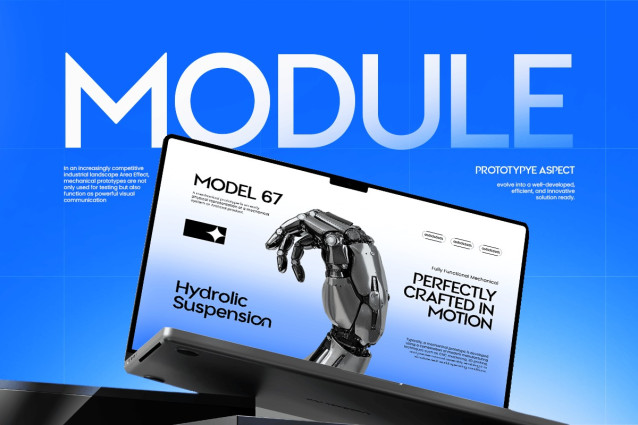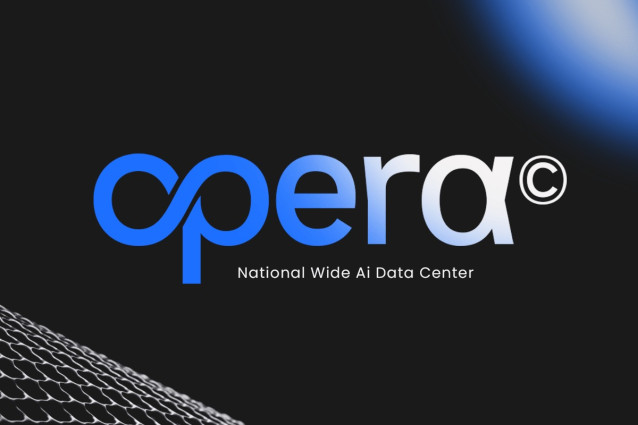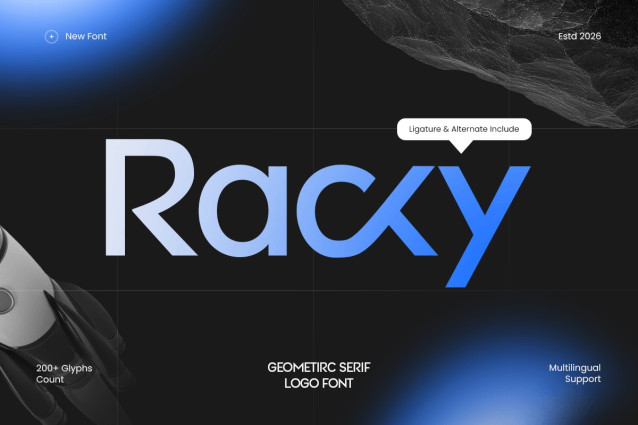
Racky Font
Racky Font— Geometric Corporate Logo Font is a modern display typeface designed to bring clarity, structure, and professionalism to a company’s brand image. Inspired by geometric construction and contemporary commercial design, Racky is designed for brands that value precision, consistency, and a clean visual identity.
With its precise geometric shapes, balanced proportions, and refined structure , Racky creates a strong and reliable typographic presence. The design ensures excellent legibility while maintaining a modern and professional tone, making it ideal for corporate logo systems and branding projects.